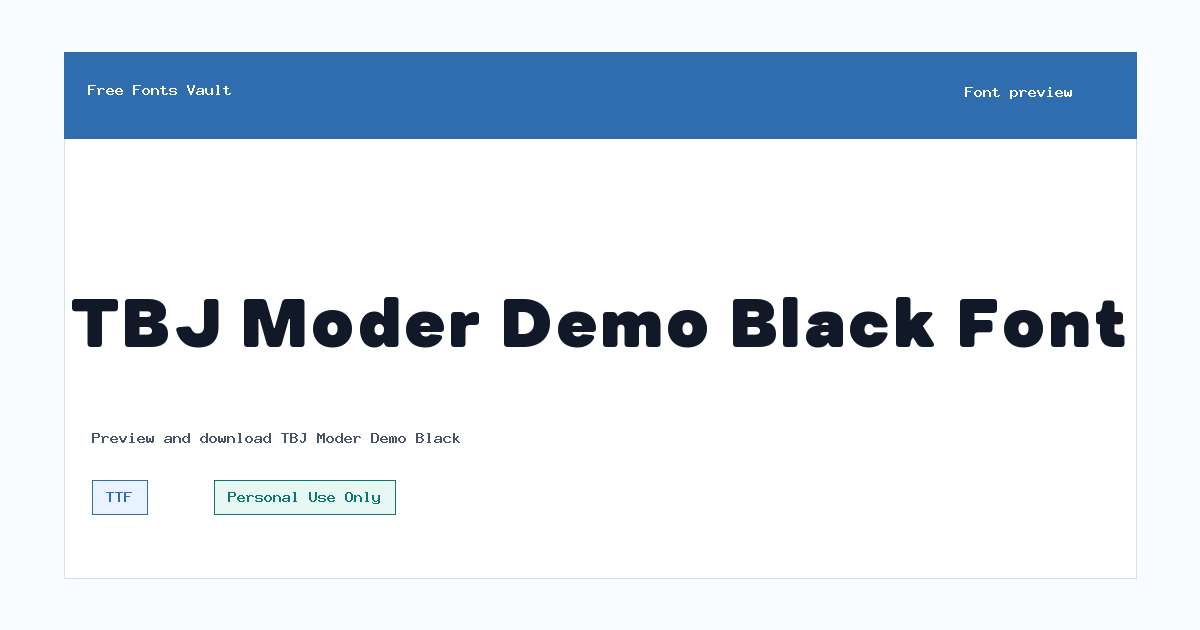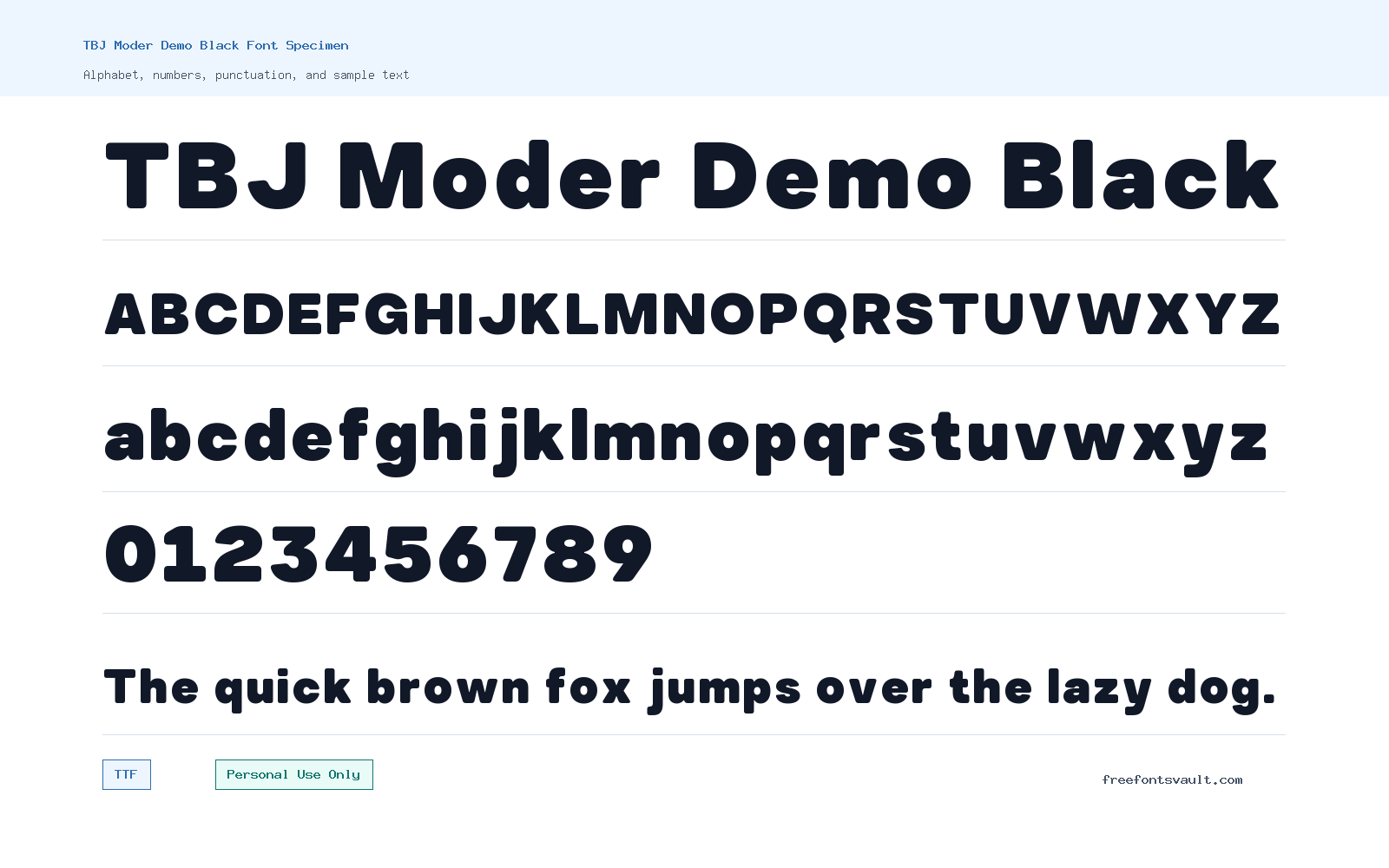
TBJ Moder Demo Black
TBJ Moder Demo Black is a heavy display font from Taboja Studio, built for bold preview text and short design settings where a strong black weight is useful.
About TBJ Moder Demo Black
TBJ Moder Demo Black works best when you need a compact, high-impact headline style rather than long reading text. The available font file is a TTF with a 900 weight, so visitors can expect a very heavy cut suited to large words, title treatments, poster mockups, social graphics, packaging tests, and experimental logo drafts. Because the name identifies it as a demo and the license note says Personal Use Only, it is safest to treat this download as a trial font for non-commercial layouts, private studies, and concept exploration.
Use the preview box to test the exact words you plan to design with. Heavy display fonts can look excellent in a single word or short phrase, but spacing, punctuation, and mixed-case text may need careful checking. Try your brand name, event title, album name, or poster headline at several sizes before downloading. For logo work, test whether the thick strokes stay recognizable when scaled down. For web mockups, use it sparingly in hero titles or graphic headlines, then pair it with a clean sans serif or readable text face for body copy, navigation, and captions.
• Very heavy 900-weight display style for strong headlines and short text treatments.
• Normal style regular variant, useful for straightforward headline testing without extra style switching.
• Best used at large sizes where the black weight has enough space to breathe.
• Poster headlines and event graphics
• Logo concepts and wordmark drafts
• Social media title images
• Web hero mockups and landing page headlines
• Packaging, label, and cover design experiments
• Typography studies and personal design practice
Keep this font for short, prominent text. Start with headlines, names, initials, or two-to-five-word phrases, then adjust tracking and size until the letter shapes feel balanced. Avoid setting long paragraphs with it, because a black display weight can become tiring and reduce readability. If you are making a poster or web mockup, pair it with a quieter sans serif for supporting text. If you are testing a logo, check the design at small sizes and in one color before moving it into a real brand project.
What kind of design is this font best suited for?
It is best suited for short display use: poster titles, logo concepts, bold social graphics, web hero text, packaging mockups, and other places where a heavy headline style is needed.
Can I use TBJ Moder Demo Black for body text?
It is not the best choice for long body copy. The 900 weight is better for large, short text. Use a simpler, more readable font for paragraphs, menus, descriptions, and small captions.
How should I pair this font?
Pair it with a clean sans serif or a neutral text font. Let TBJ Moder Demo Black handle the main headline, then use the quieter font for subtitles, body copy, buttons, and smaller interface text.